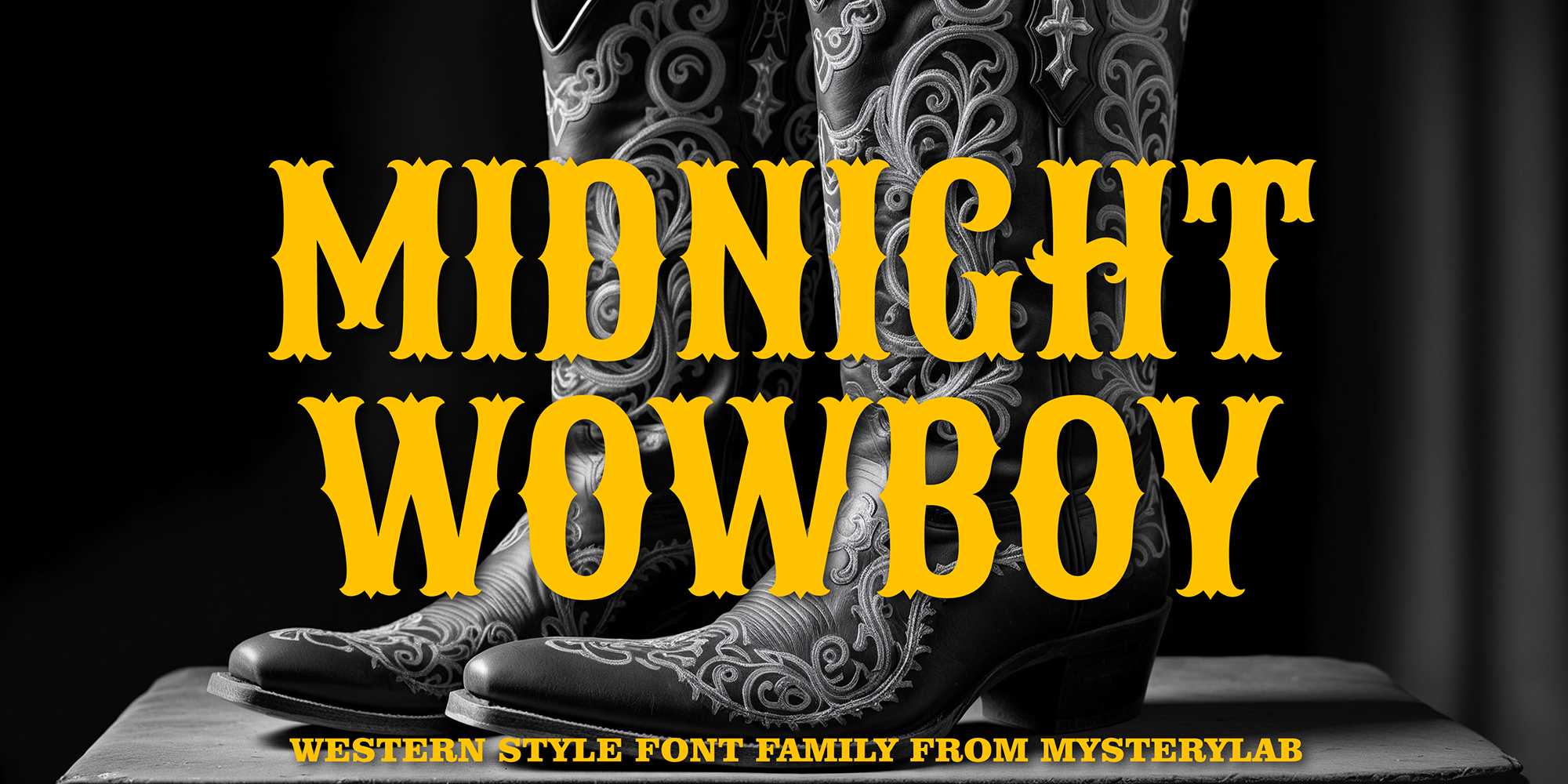
Midnight Wowboy Font is perfect for western-themed entertainment venues, cowboy bar branding, rodeo event promotions, country music festival signage, ranch resort communications, wild west gaming interfaces, western wear packaging, and frontier-inspired restaurant marketing. This captivating typeface excels in applications where western adventure, midnight mystique, and frontier spirit are essential for creating memorable experiences that transport audiences to the legendary landscapes of the American West and nocturnal cowboy adventures.
What makes Midnight Wowboy Font so exciting is its thrilling fusion of classic western typography with mysterious midnight atmosphere that perfectly captures the essence of lone cowboys riding under starlit skies. The font features bold, rugged letterforms with western-inspired flourishes that evoke campfire stories and moonlit cattle drives. Its adventurous character conveys freedom, mystery, and frontier courage - essential qualities for brands connecting with audiences who appreciate western heritage, outdoor adventure, and the romantic allure of midnight rides across endless prairies.
The Midnight Wowboy Font family includes multiple frontier weights and western variations that enhance its cowboy appeal. Some versions feature weathered textures that simulate worn leather and branded wood, while others provide cleaner variants that maintain the font's western character with improved readability for modern entertainment applications and commercial western-themed branding.
Whether you're creating branding for western entertainment venues, designing promotional materials for rodeo events, or developing marketing campaigns for frontier-themed experiences, Midnight Wowboy Font Free Download provides the authentic western mystique your project demands. The font's midnight cowboy character makes it particularly effective for brands targeting adventure seekers and audiences who appreciate western culture, frontier freedom, and the legendary spirit of midnight horseback adventures.
Ride into legend with Midnight Wowboy Font and lasso unforgettable brand communications with typography that celebrates the mysterious freedom of midnight cowboys and western frontier adventure.